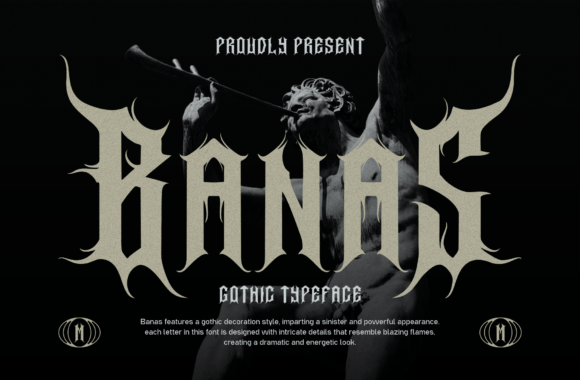
Banas Font: Unleashing the Fiery Essence of Indonesian Mythology
In the realm of typography, few fonts have managed to capture the essence of mythology and translate it into a visual identity. Banas Font, derived from the Indonesian mythological demon Banaspati, is one such font that embodies the fiery and powerful connotations of its namesake. This metal font is designed to evoke the fearsome and intense characteristics of Banaspati, making it an ideal choice for creative projects that require a dark, mysterious, and energetic aesthetic.
The Origins of Banas Font
Banas Font finds its roots in Indonesian mythology, specifically in the legend of Banaspati, a demon known for its fearsome and fiery nature. The word “Banaspati” translates to “forest king” or “lord of the forest,” but its connotations are far more sinister. In mythological tales, Banaspati is often depicted as a powerful and malevolent entity, feared for its ability to unleash fiery destruction. This mythological background serves as the foundation for Banas Font, infusing it with a sense of power, intensity, and mystique.
Design Characteristics of Banas Font
Banas Font is characterized by its Gothic Decoration style, which gives it a unique and distinctive appearance. Each letter in the font is intricately designed to resemble blazing flames, thereby echoing the fiery essence of Banaspati. The font’s design is not just about aesthetics; it’s about evoking an emotional response. The intricate details and the dramatic flair of Banas Font make it stand out in any design project, adding a touch of horror, mystery, and intensity.
Gothic Decoration Style
The Gothic Decoration style of Banas Font is one of its most striking features. This style imparts a sinister and powerful appearance to the font, making it perfect for designs that require a bold statement. The Gothic influence can be seen in the sharp lines, intricate details, and the overall structure of the letters, which are reminiscent of traditional Gothic architecture and art.
Intricate Details and Flames
The intricate details in Banas Font are designed to resemble blazing flames, which is a direct nod to Banaspati’s association with fire. This design choice not only makes the font visually striking but also imbues it with a sense of energy and dynamism. The flame-like details can be seen in the curves, lines, and embellishments of the letters, creating a dramatic and energetic look that is hard to ignore.
Alternatives for Uppercase Letters
Adding to its versatility, Banas Font includes several alternatives for its uppercase letters. This feature offers designers flexibility and variety in their application, allowing them to experiment with different looks and feels within the same font family. The alternative letters can be used to create a unique visual identity or to add emphasis to certain words or phrases in a design.
Applications of Banas Font
Given its unique design and aesthetic, Banas Font is ideal for a variety of creative projects. Its dark, fiery, and intense characteristics make it a perfect fit for designs that aim to evoke a sense of horror, mystery, and power. Some of the most suitable applications for Banas Font include:
Metal Band Logos
For metal bands looking for a logo that captures their music’s intensity and energy, Banas Font is an excellent choice. The font’s fiery and powerful aesthetic aligns well with the themes commonly explored in metal music, such as power, rebellion, and intensity.
Concert Posters and Album Covers
Concert posters and album covers are other areas where Banas Font can shine. Its dramatic and energetic look can help grab attention and convey the tone of the event or the music. Whether it’s a heavy metal concert or a dark-themed album, Banas Font can add a compelling visual element.
T-Shirts and Merchandise
Banas Font’s unique design makes it a great choice for t-shirts and other merchandise. The font’s bold and eye-catching appearance ensures that any design stands out, making it perfect for fans of metal music, horror movies, or anyone who appreciates a dark and fiery aesthetic.
Various Creative Projects
Beyond these specific applications, Banas Font can be used in a wide range of creative projects. Whether it’s for a horror movie poster, a dark-themed website, or any design that requires a touch of mystery and intensity, Banas Font offers a versatile solution.
Banas Font is more than just a typeface; it’s a visual statement that captures the essence of Indonesian mythology and translates it into a modern design context. With its Gothic Decoration style, intricate flame-like details, and alternative uppercase letters, Banas Font offers a unique combination of aesthetics and functionality. Its suitability for a variety of creative projects, from metal band logos to horror-themed designs, makes it a valuable asset for designers looking to add a touch of darkness, power, and intensity to their work. As a font that symbolizes the strokes of fire and embodies the fearsome characteristics of Banaspati, Banas Font is set to leave a lasting impression in the world of typography and design.